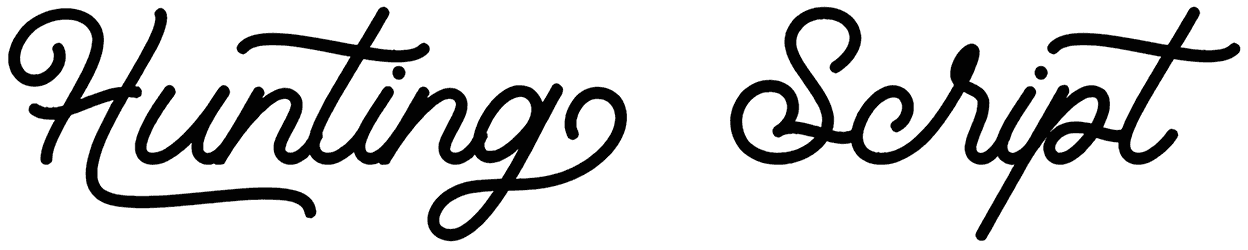
Hunting Script Font
Welcome to Hunting Script, a majestic typeface that adds a personalized handwritten touch to your artwork, including posters, logos, product packaging, gift cards, and invitations.